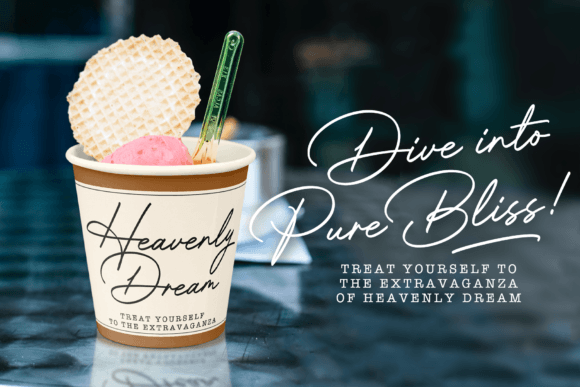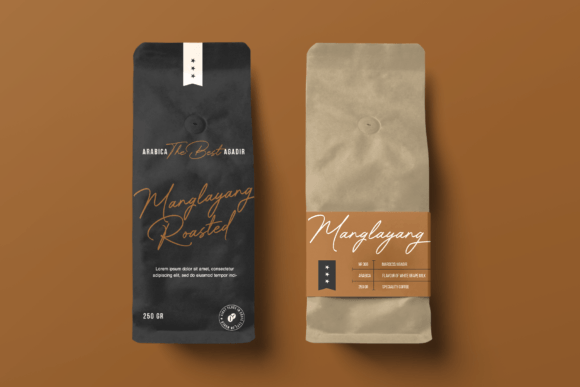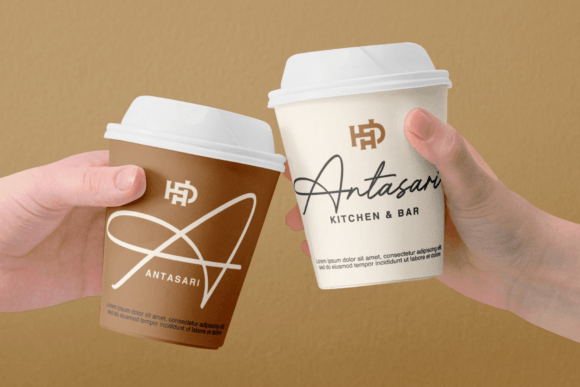
Bradford Signature is a sophisticated script font that radiates elegance and class. Its flowing lines and delicate curves evoke a sense of refinement and grace. Perfect for wedding invitations, logos, and branding materials, Bradford Signature adds a touch of luxury and sophistication to any design project.
Bradford Signature Font